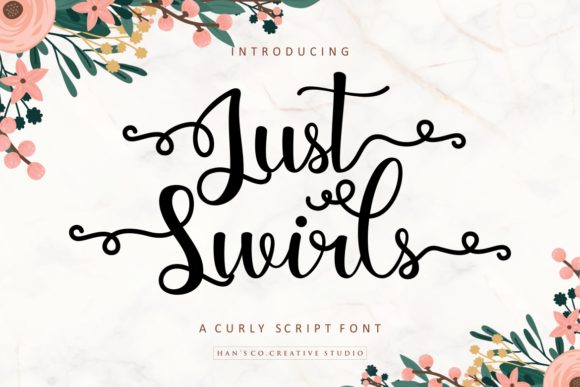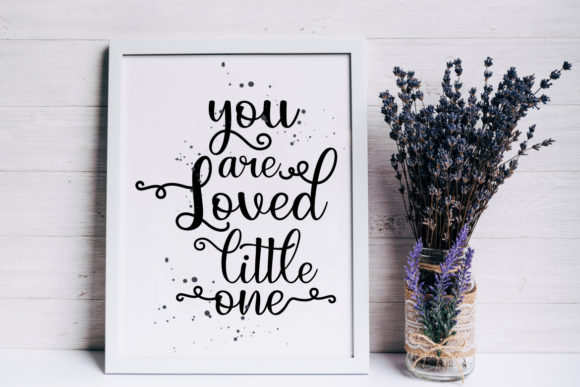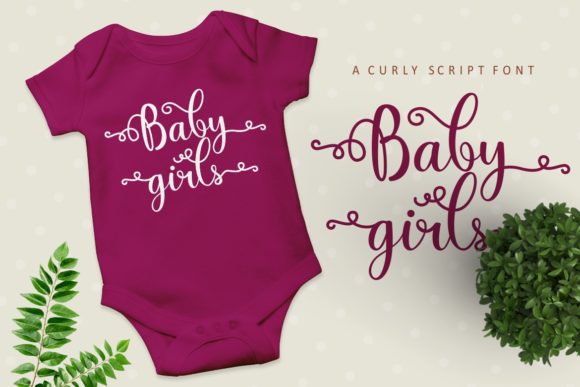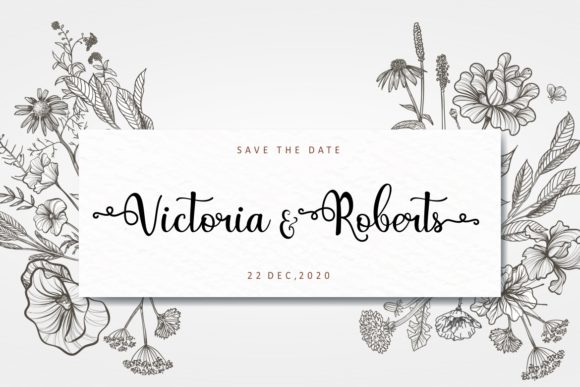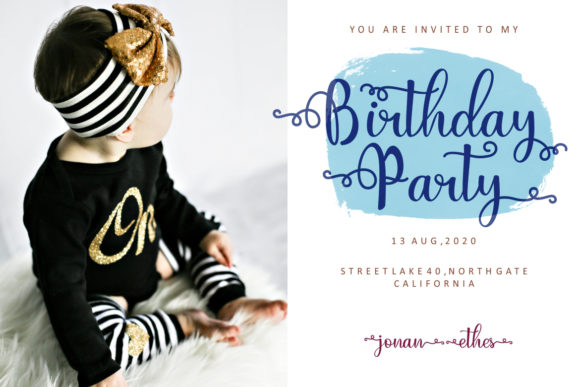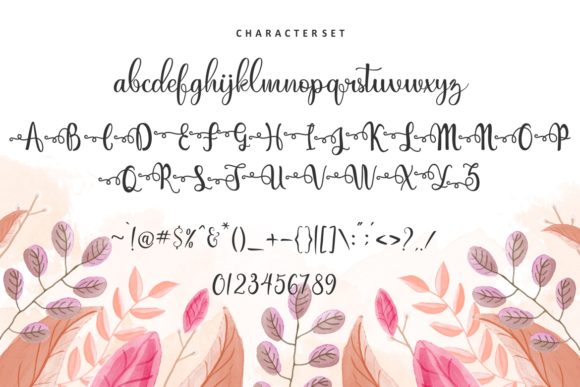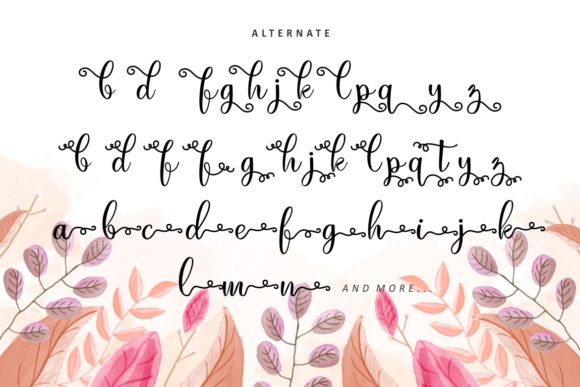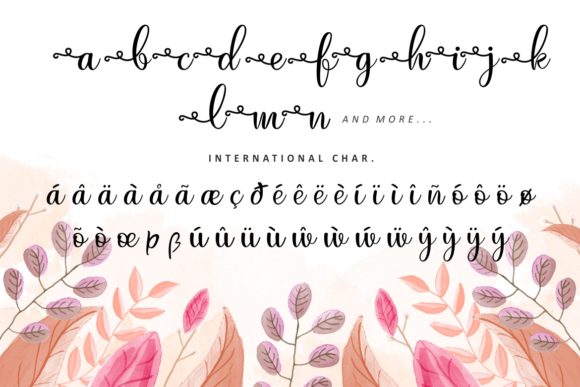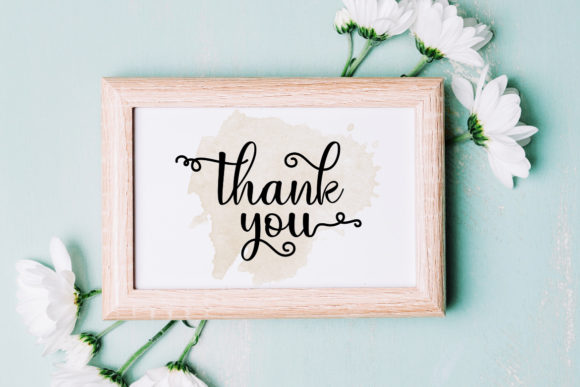
HomeScript FontsJust Swirls Font Script Fonts Just Swirls Font FacebookXPinterestWhatsApp Just Swirls Font Poster 2 Just Swirls Font Poster 3 Just Swirls Font Poster 4 Just Swirls Font Poster 5 Just Swirls Font Poster 6 Just Swirls Font Poster 7 Just Swirls Font Poster 8 Just Swirls Font Poster 9 About Just Swirls Font Just Swirls is, as the name suggests, an incredibly playful and sweet script that features gorgeous swirls. DOWNLOAD ON CREATIVE FABRICAThis font is sold and delivered by Creative Fabrica. Font Canyon may earn a commission if you buy through this link. People also explored Australia Font Harisha Font Hexore Santiago Font Dark Bond Font Unicorn Font Fondene Font Sound of Nature Font Annabella Font 453 0 TagsJust Swirls Font Previous articleFellisetta FontNext articleDelvito Rusco Font LEAVE A REPLY Cancel reply Comment: Please enter your comment! Name:* Please enter your name here Email:* You have entered an incorrect email address! Please enter your email address here Website: Save my name, email, and website in this browser for the next time I comment. Personal Use Free Mounets Personal Use Free Read more about this font Millea Personal Use Free Read more about this font Crellia Script Personal Use Free Read more about this font Just Love Personal Use Free Read more about this font BLOG Using Fonts in Digital Marketing: Tips to Strengthen Your Brand Identity In the realm of digital marketing, every visual element plays a crucial role in shaping a brand's identity, and fonts are no exception. The... Free Fonts Risk: Why Free Fonts Can Be Dangerous for Designers Free vs Paid Fonts: Why Investing in Premium Fonts Is Worth It 5 Fonts That Will Dominate Design Trends in 2026